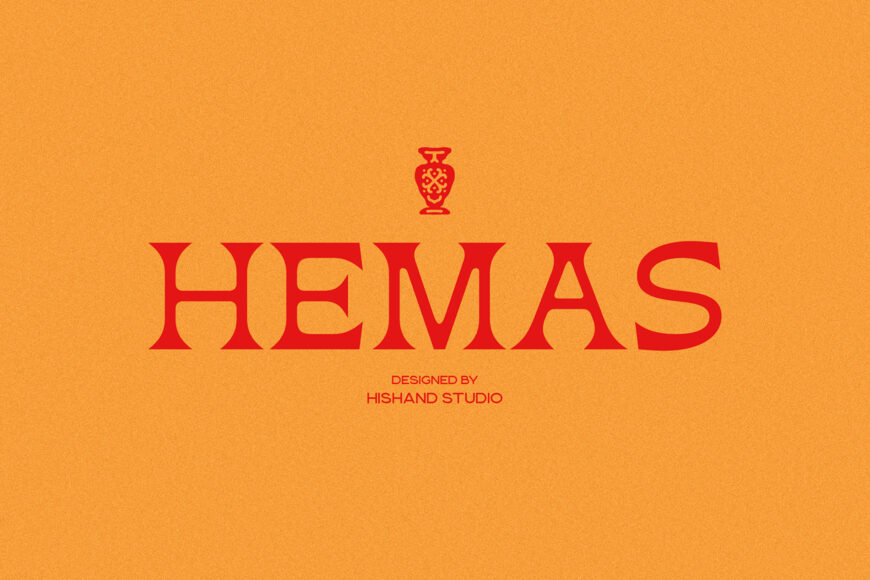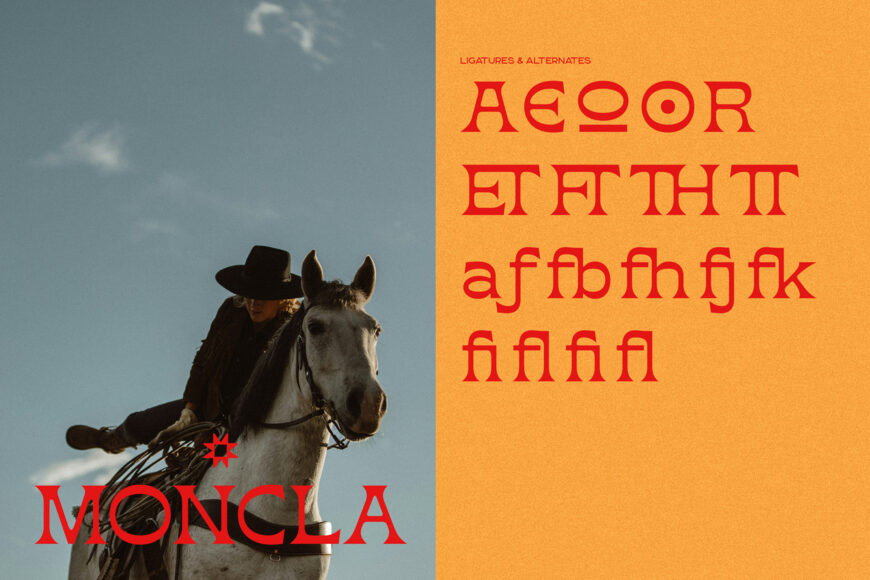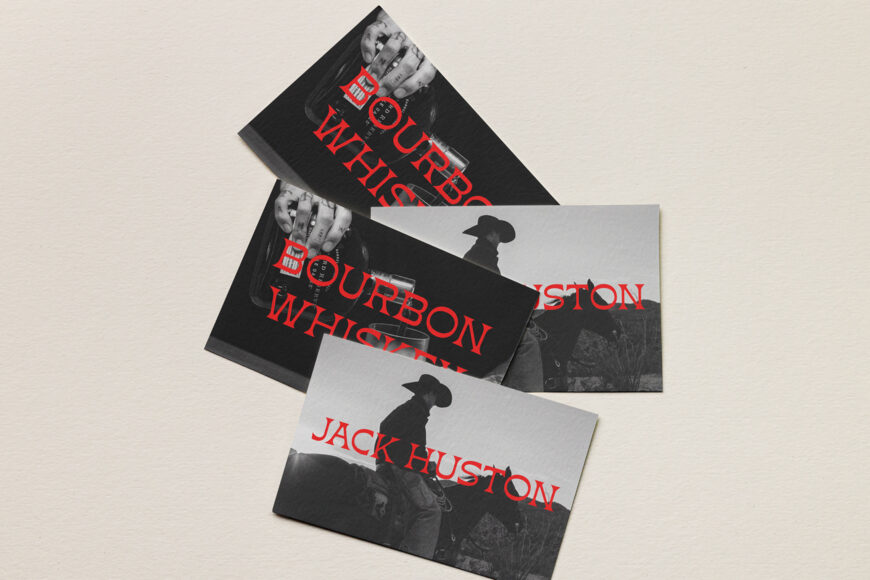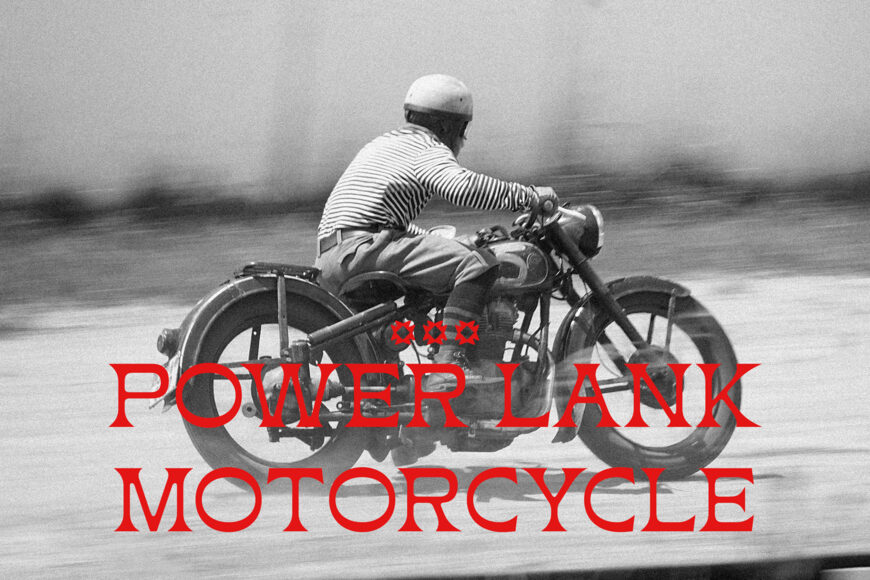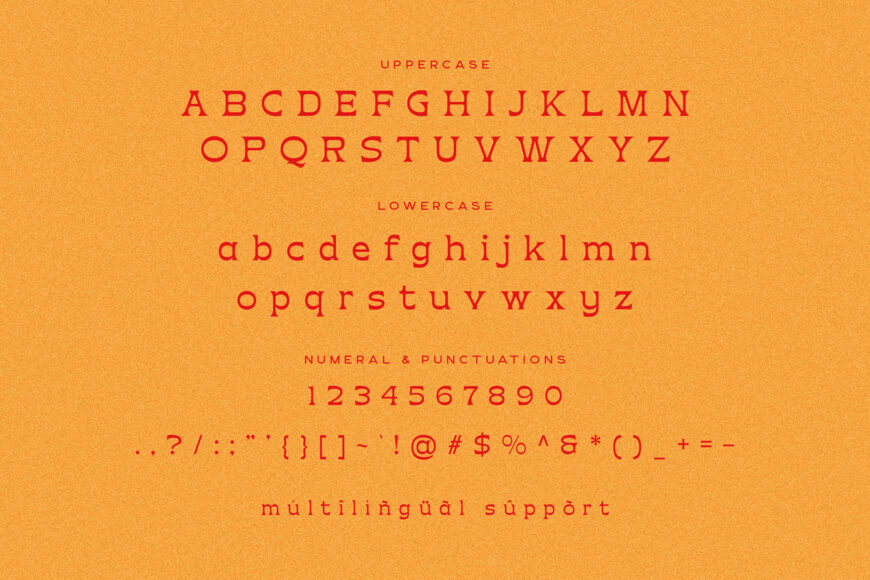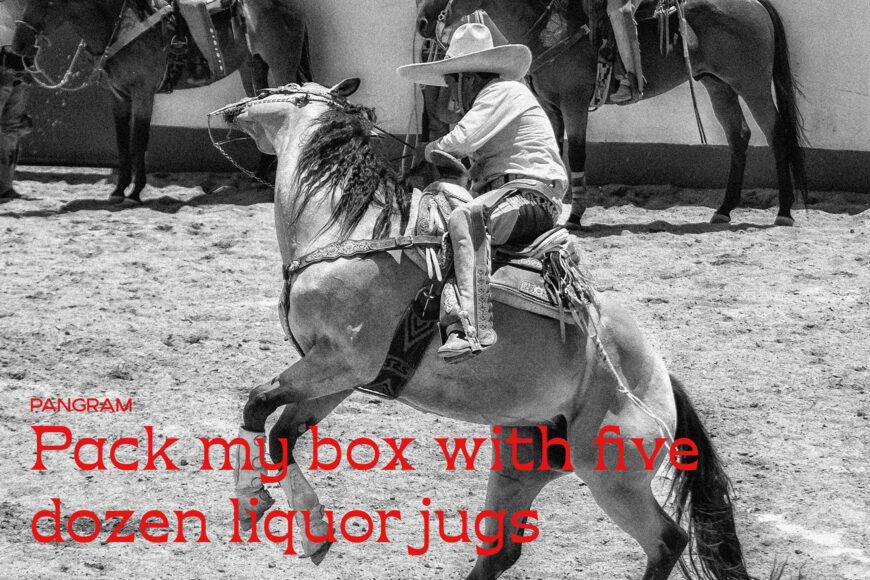
Hemas Font
Hemas is a serif display typeface that combines classic elegance with a distinctive, contemporary edge. Its balanced letterforms feel refined without appearing generic or excessive, making it ideal for logos, packaging, editorial headlines, and premium branding. The structured serifs add sophistication and versatility, working equally well in minimalist layouts or bold, expressive designs.
Designed by: Hishand Studio